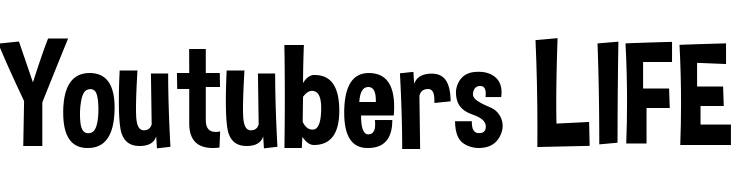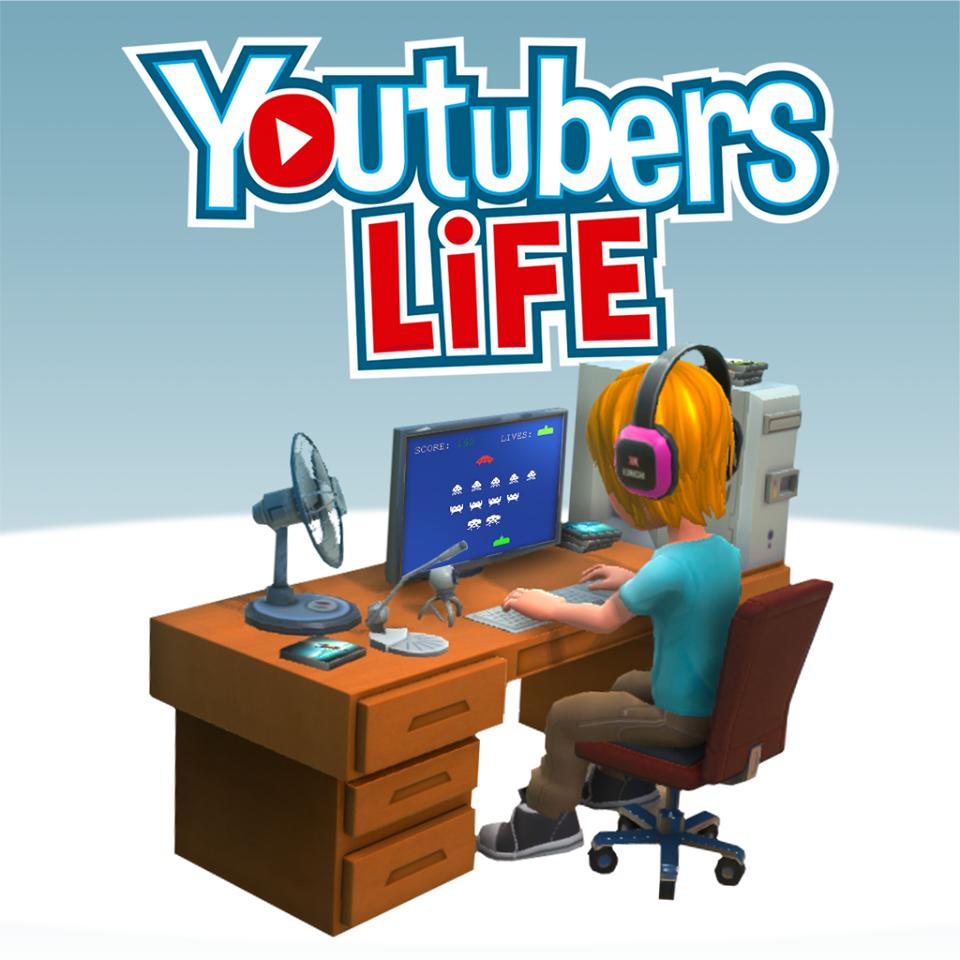
Youtubers Life Font
Fonts in UseYoutubers Life is a simulation game where players become virtual YouTubers, managing channels and navigating the challenges of fame. Developed by U-Play Online, it offers a storyline of growth and success in the digital world.
The game's logo appears to have been influenced by Jayvee Enaguas's Dimbo font, which is a fun and playful typeface inspired by the title lettering of the Looney Tunes cartoon "Senorella and the Glass Huarache" from 1964. You can download the font for free from the Fonts Used Section.